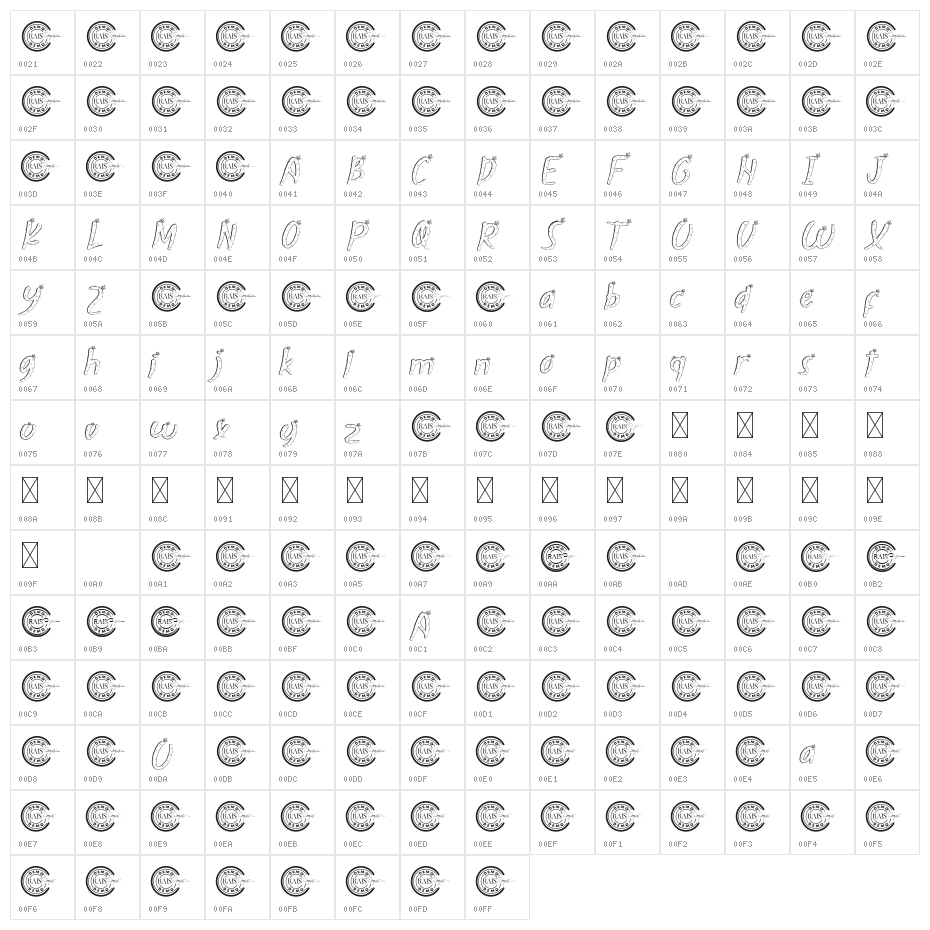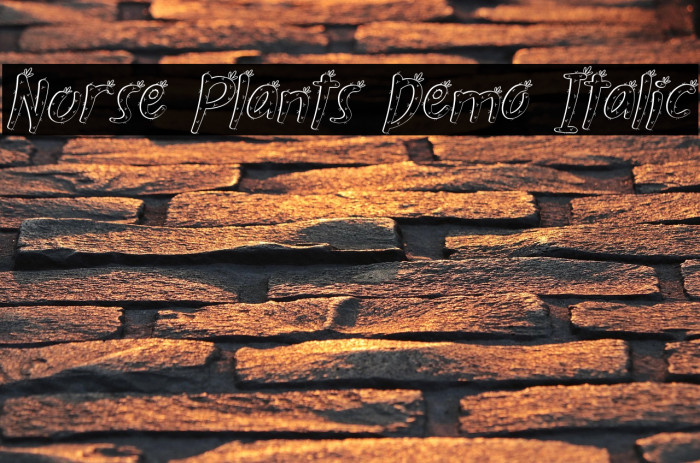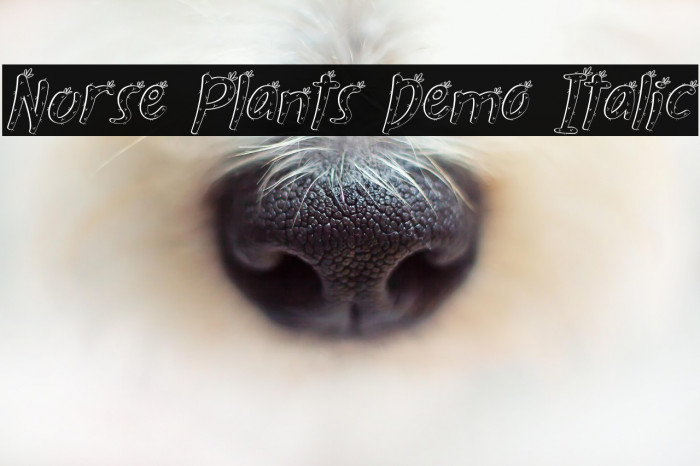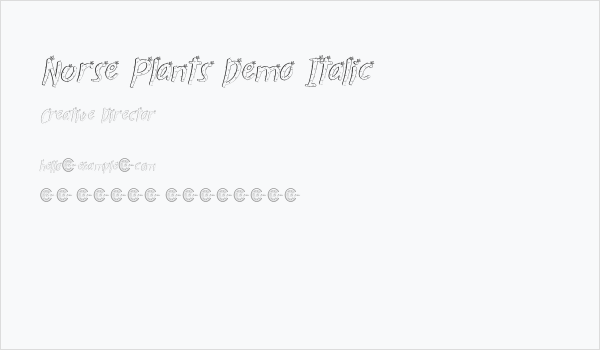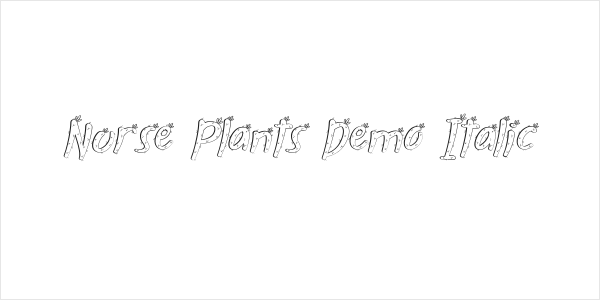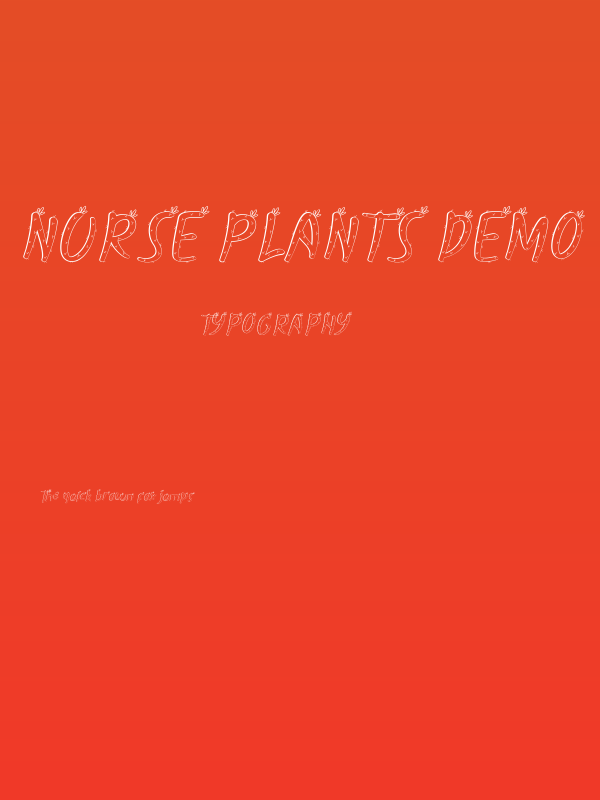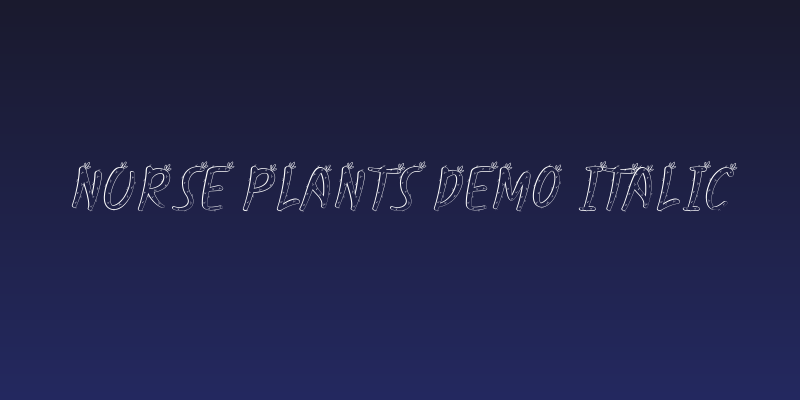
Nurse Plants Demo Italic Font
Nurse Plants Demo Italic Description
This whimsical and playful font features letters that resemble plant stems, complete with small leaves sprouting from them. The design is organic and lively, with a hand-drawn aesthetic that adds a touch of nature-inspired charm. Each character is uniquely crafted, maintaining a consistent theme throughout the alphabet. The font's style is both decorative and illustrative, making it ideal for projects that require a natural or eco-friendly vibe. Its italic slant adds a dynamic and flowing feel, enhancing its overall appeal.
| Use Case | Logos, Headlines, Illustrations |
| Proposed Projects | Ideal for eco-friendly branding, children's book illustrations, gardening blogs, and nature-themed event invitations. |